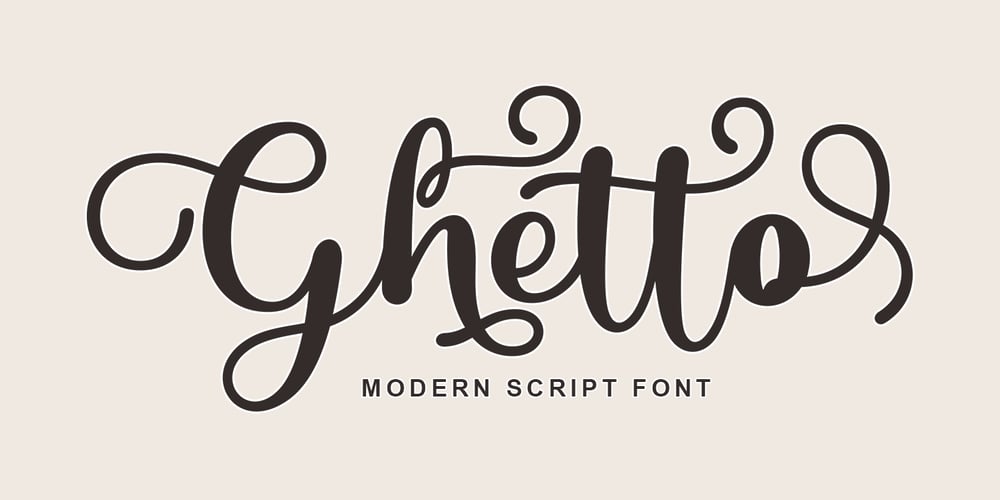
Ghetto Font Family was designed by Mu Fazzal and published by Bosstypestudio. Ghetto contains 3 styles and family package options. Ghetto is a modern script with handwriting, decorative characters, and dancing baselines! It’s very suitable in use like blog headers, t-shirts, and for weddings, social media, product design, stationery, advertising, clothing, book covers, business cards, greeting cards, branding, merchandise, invitations and handmade quotes and more.